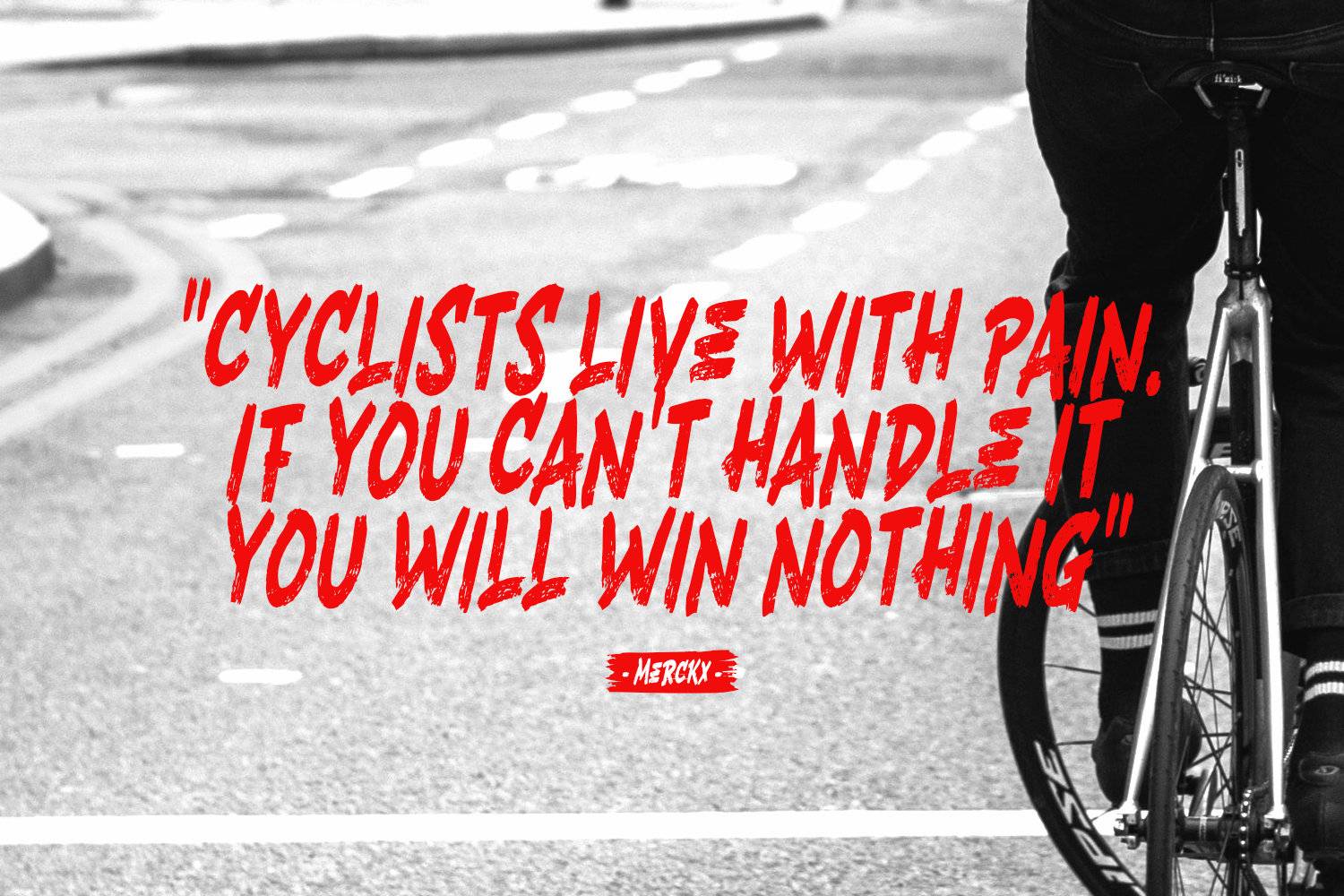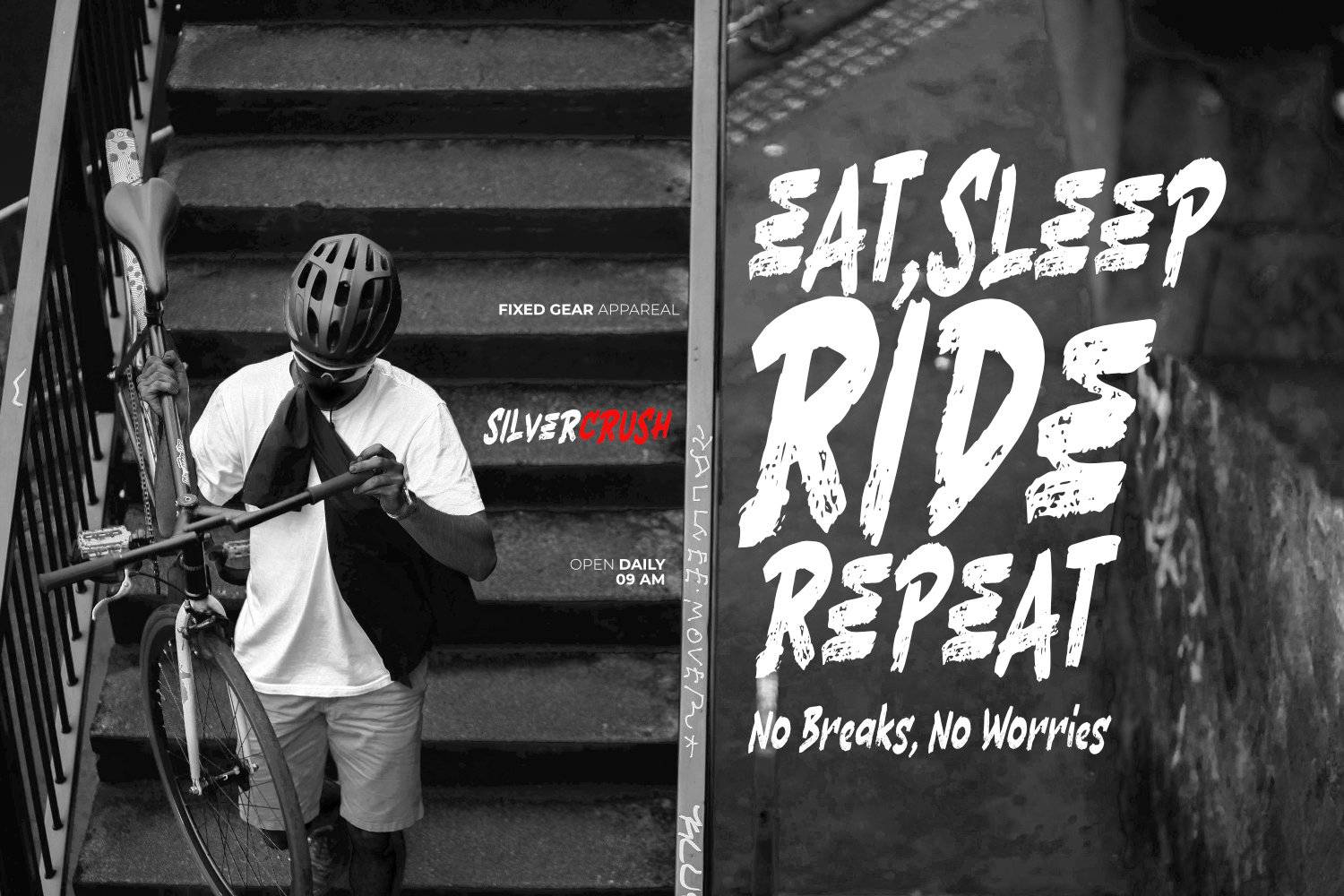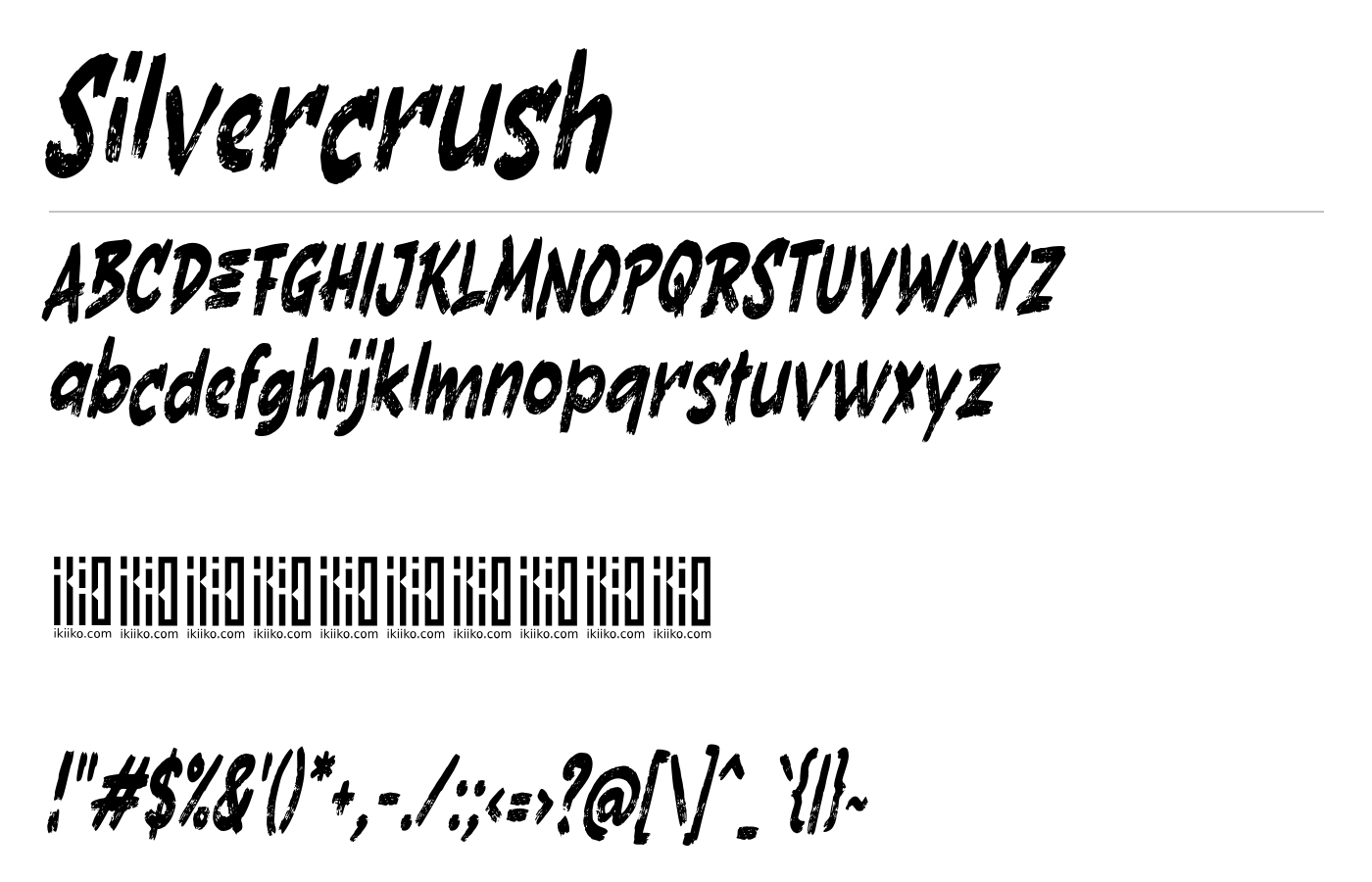
Silvercrush is a bold, brush-script style font with a rough, textured look that conveys energy and a hand-painted feel. Its slanted, irregular letterforms give it a dynamic and expressive personality, making it perfect for projects that need a casual, artistic, or edgy vibe such as posters, logos, and creative branding. This font stands out with its energetic style, ideal for grabbing attention in headlines or display uses.
Silvercrush Font
About Silvercrush Font
| Font family | Silvercrush Font |
| Designer | Andhika Pradana, Wahyu Eka Prasetya |